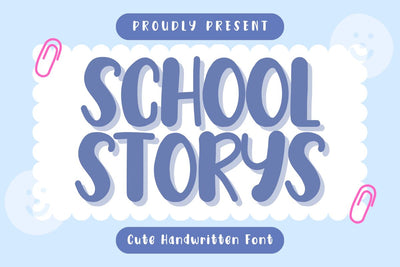
School Storys - Cute Handwritten Font
Hi, Introducing School Storys - Cute Handwritten Font
A font with a cute and fun style. This font is cool for quotes, t-shirts, decoration, pillows, mugs, posters, tote bags, tumblers, etc